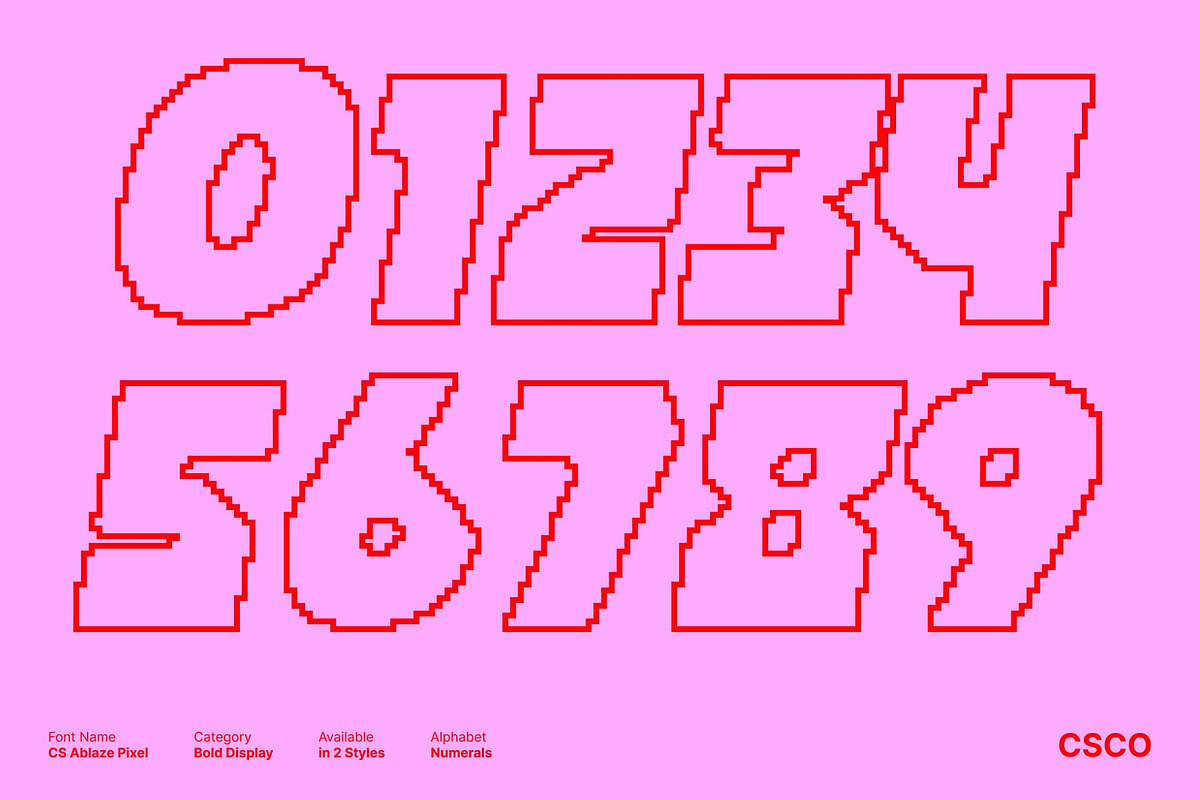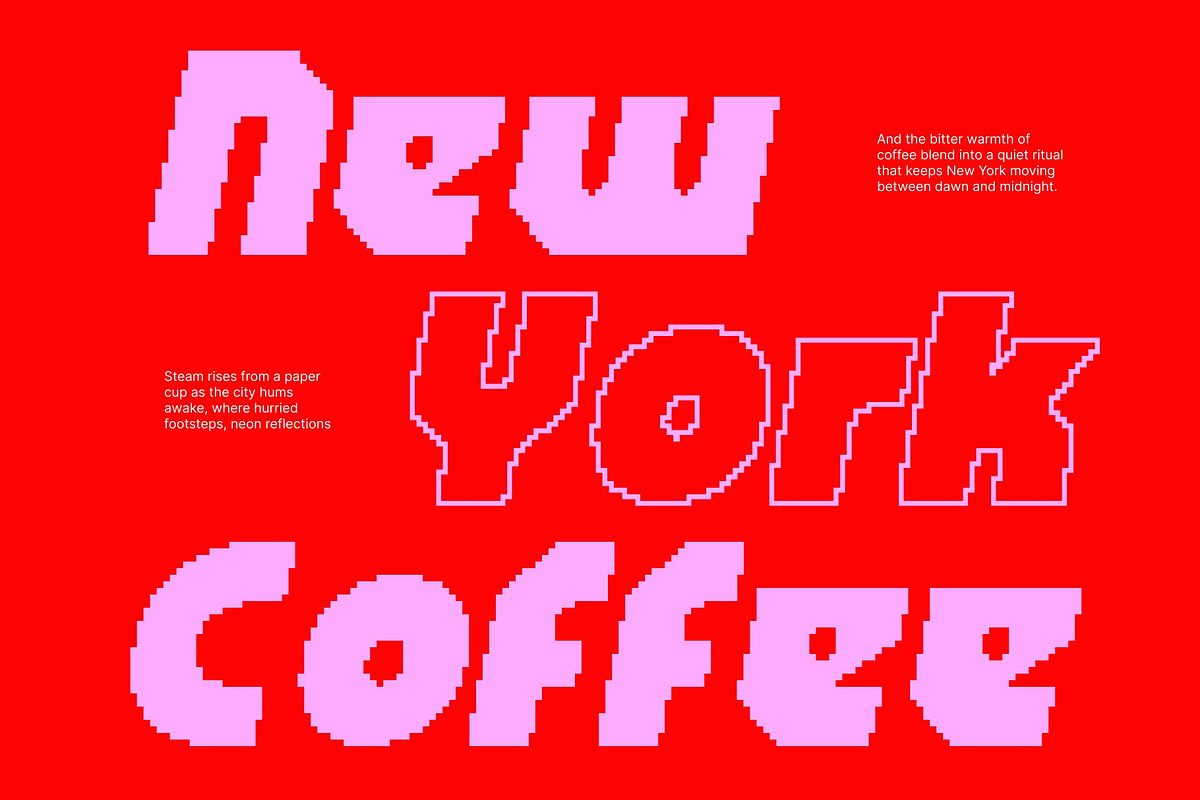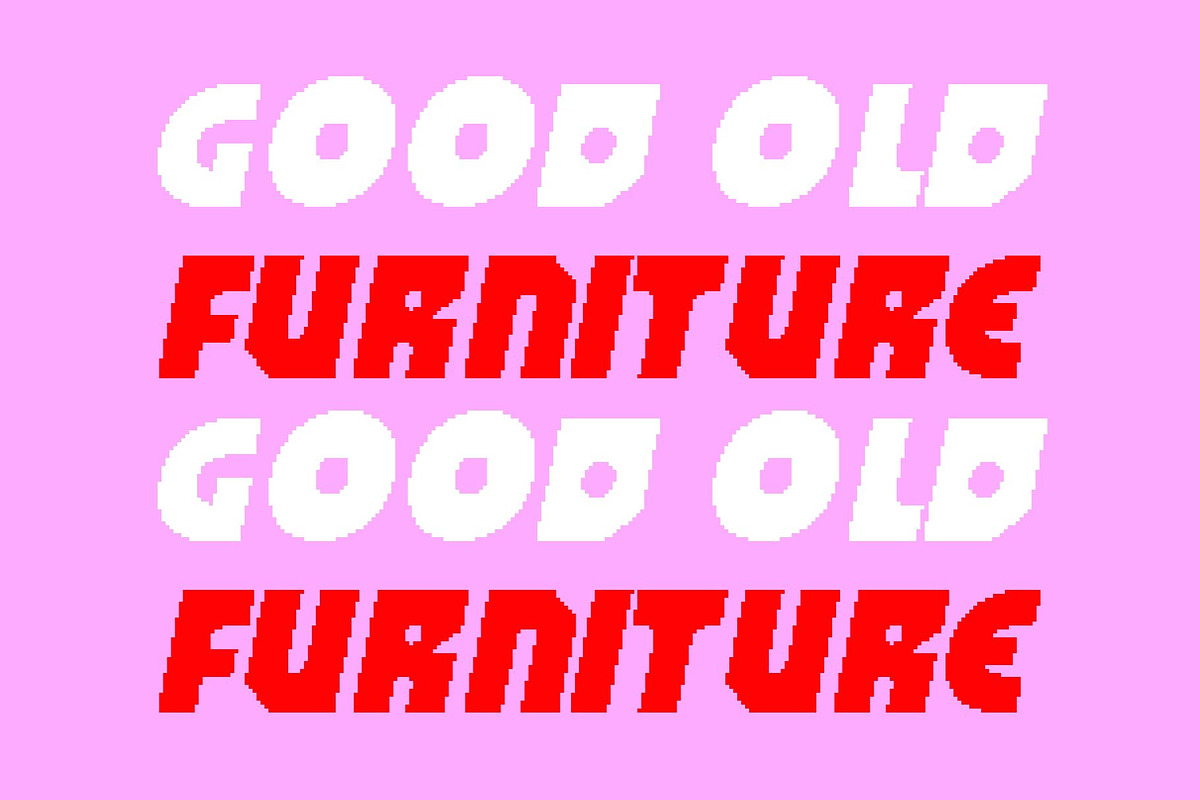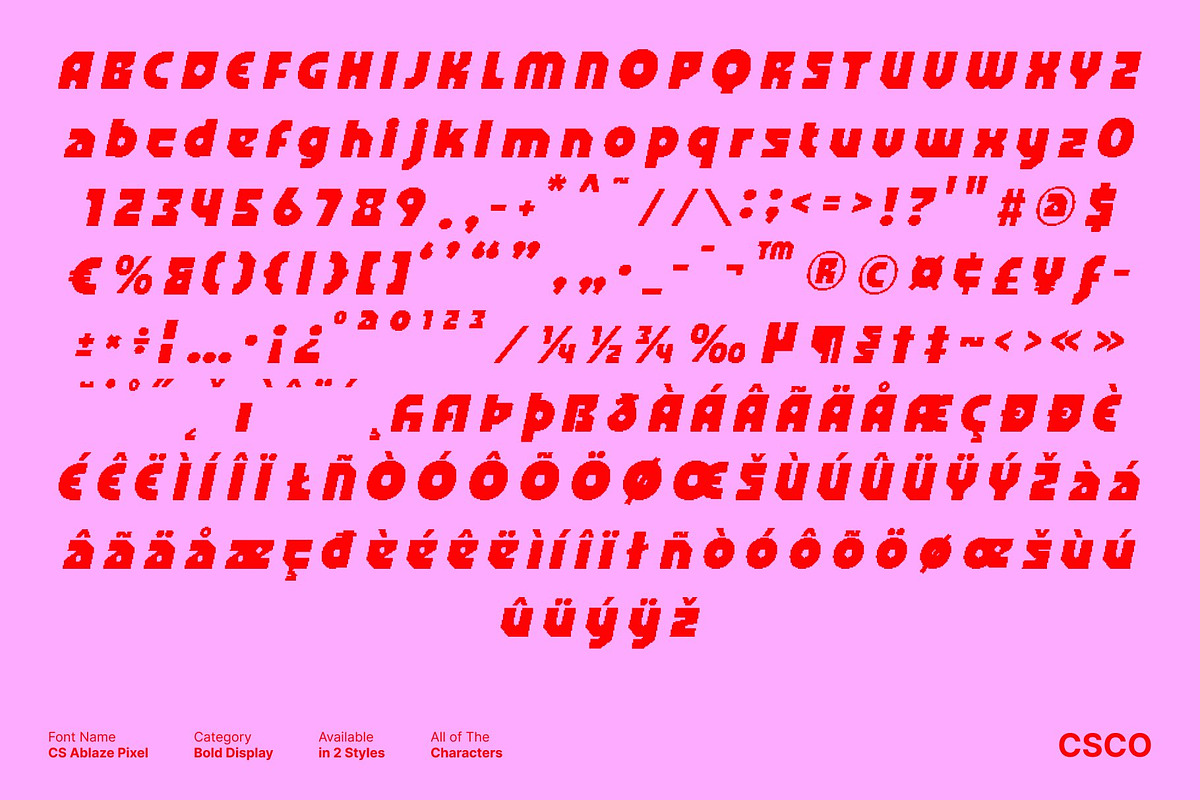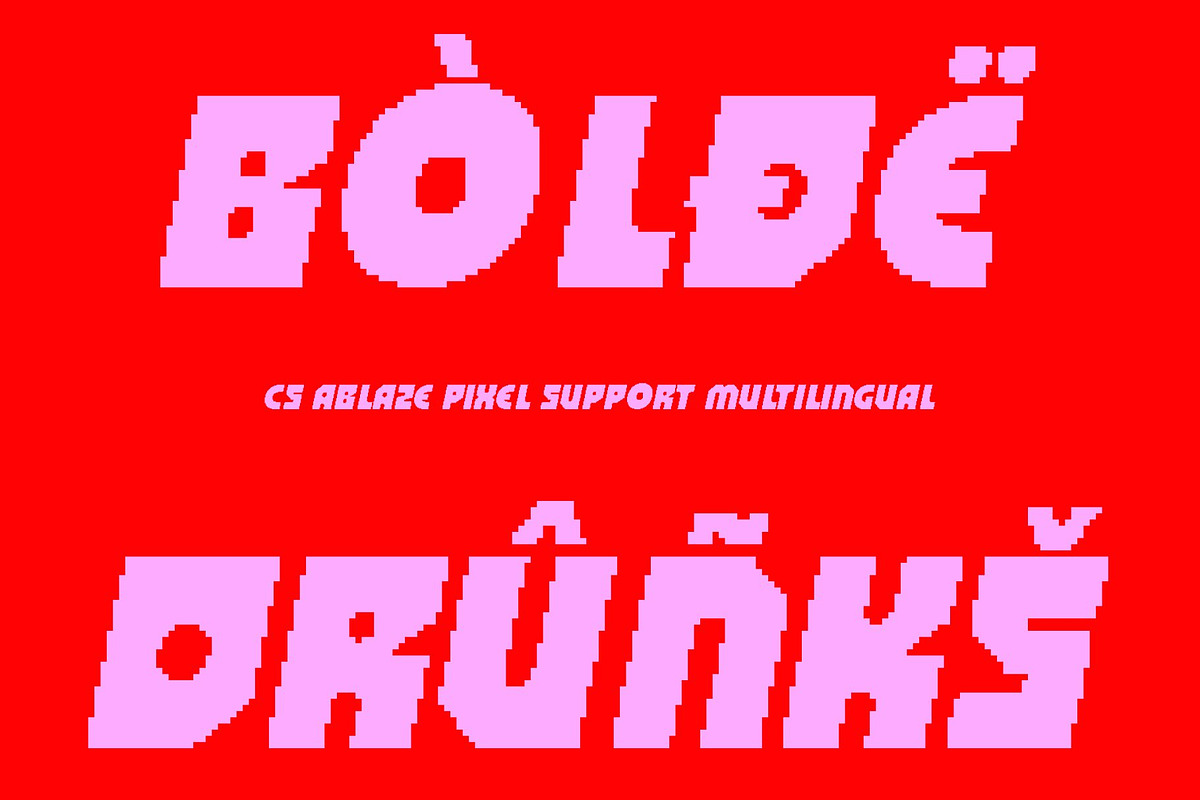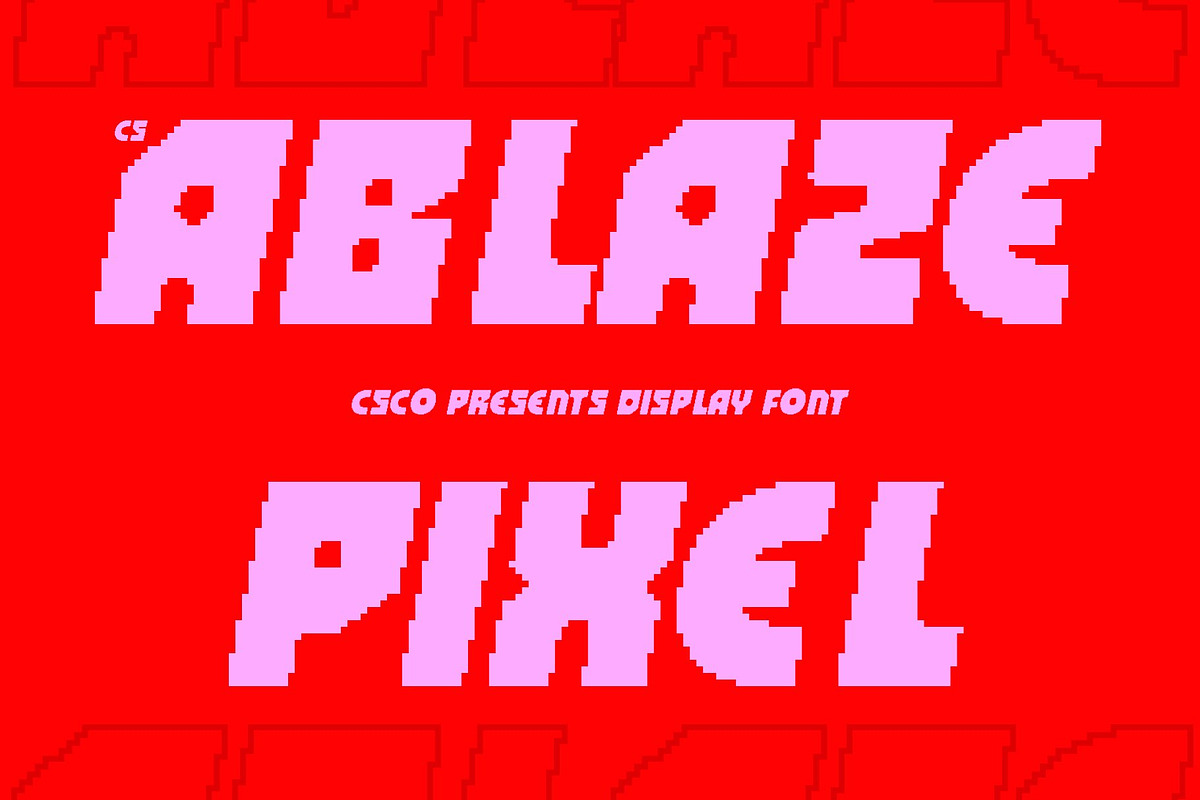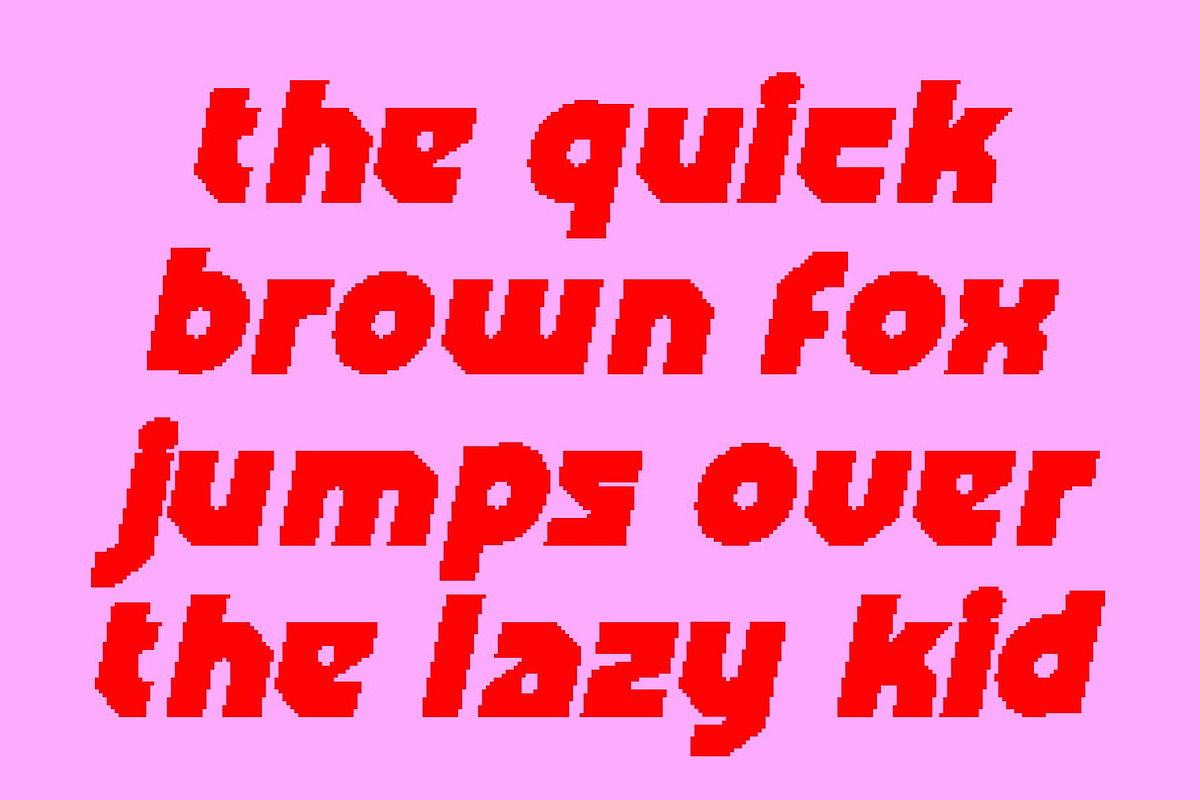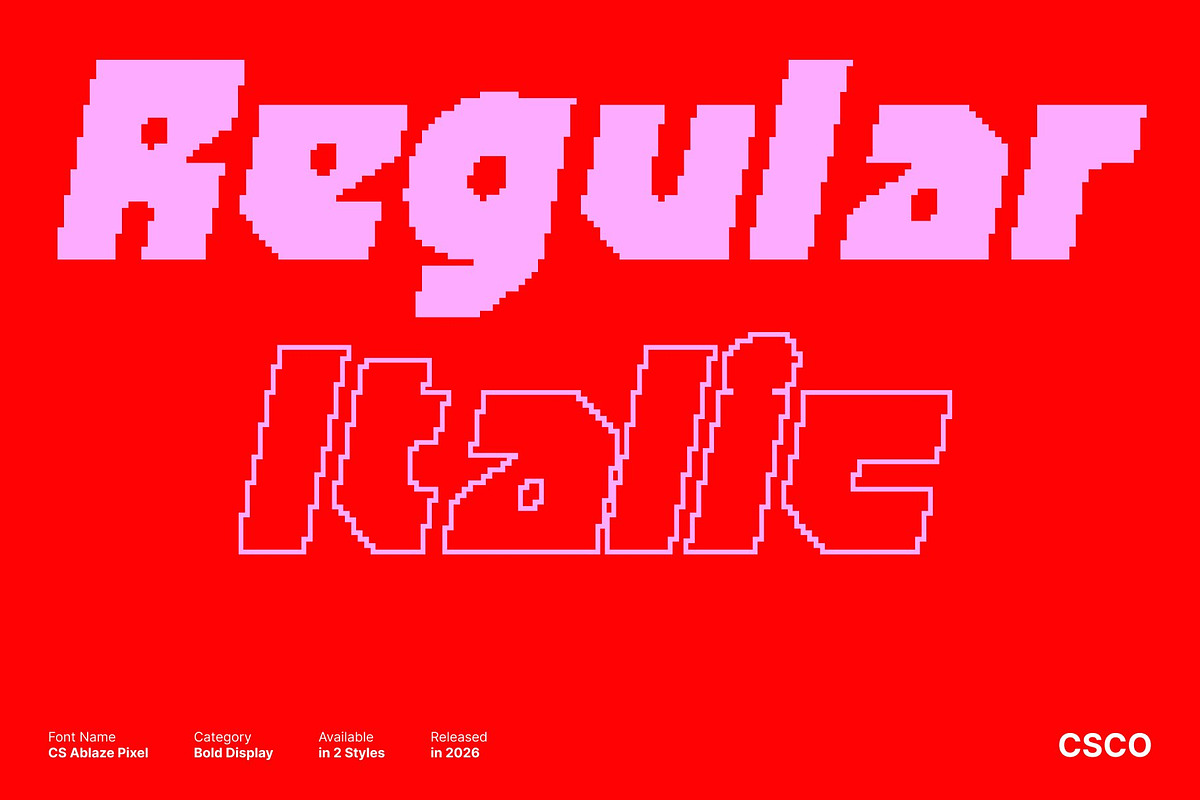
CS Ablaze Pixel
CS Ablaze Pixel – Brutalist Display Font with Industrial Power
Bold Sans Serif with Brutalist Geometry This is a bold display sans serif font constructed from blocky, brutalist shapes and a strong geometric foundation, enhanced with distinctive pixel detailing. Its heavy structure and rigid construction create an uncompromising visual presence, while the pixel elements introduce an old-digital character inspired by early computer graphics and retro technology.
Industrial, Experimental, and Retro-Digital Character Rooted in industrial aesthetics, this font embraces sharp edges, rigid forms, and bold proportions. The pixel treatment adds a retro 8-bit nuance, blending old-school digital vibes with modern experimental typography. This fusion results in a font that feels mechanical, rebellious, and unapologetic perfect for designs that aim to break conventions while celebrating retro-futuristic visuals.
Designed for Expressive Display Use This font excels in large-scale display applications where impact is essential. Its bold weight, geometric clarity, and pixel texture ensure strong readability while delivering powerful visual force. Headlines, titles, and key messages appear confident, striking, and unmistakably bold, making it ideal for posters, signage, album artwork, and statement-driven layouts.
Perfect for Posters, Music, and Bold Branding Whether used for attention-grabbing posters, music visuals, or bold brand identities, this font delivers a loud and fearless impression. Its brutalist style combined with retro digital pixel energy makes every design feel modern yet nostalgic, ensuring a strong, memorable presence that stands out across digital and print media.